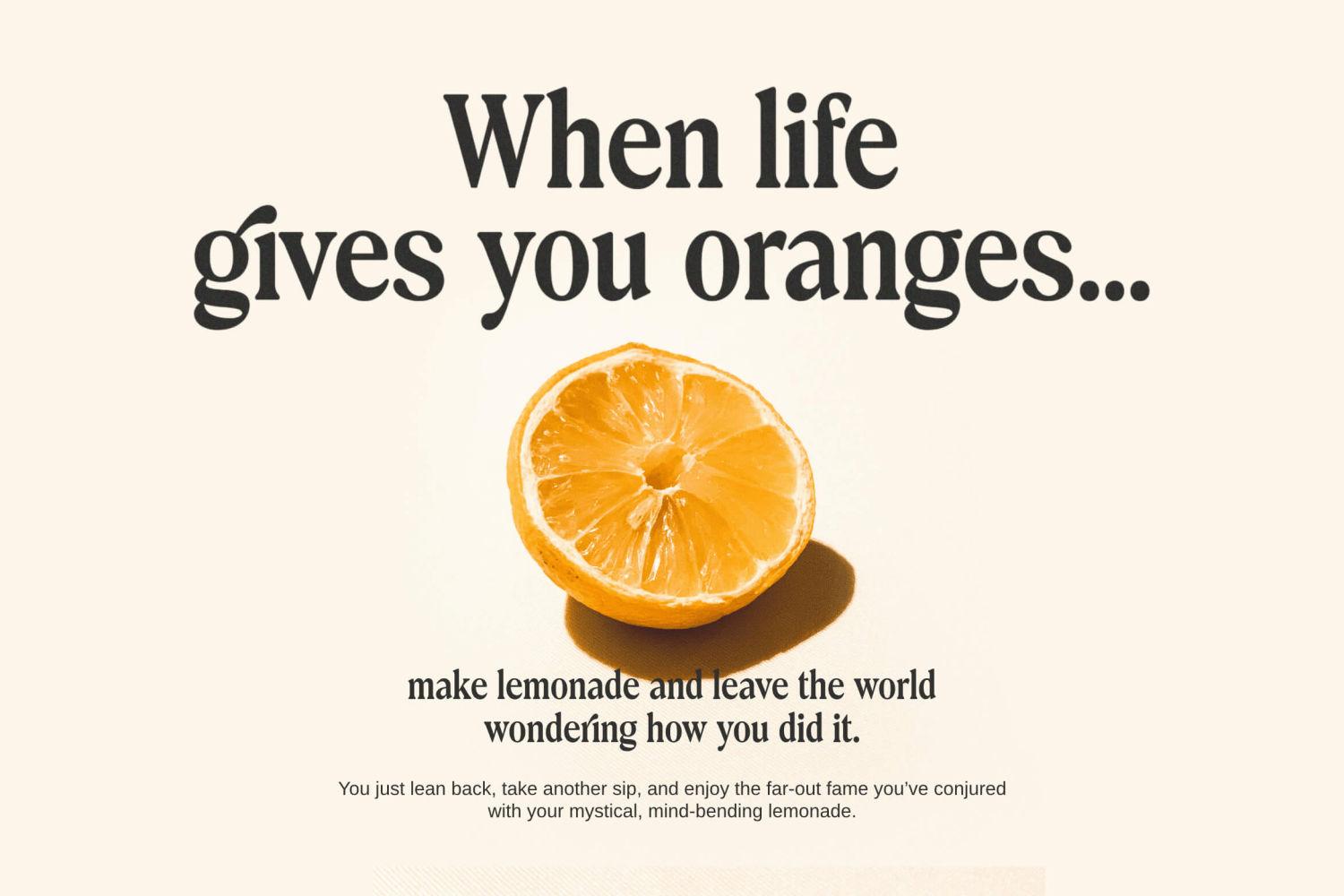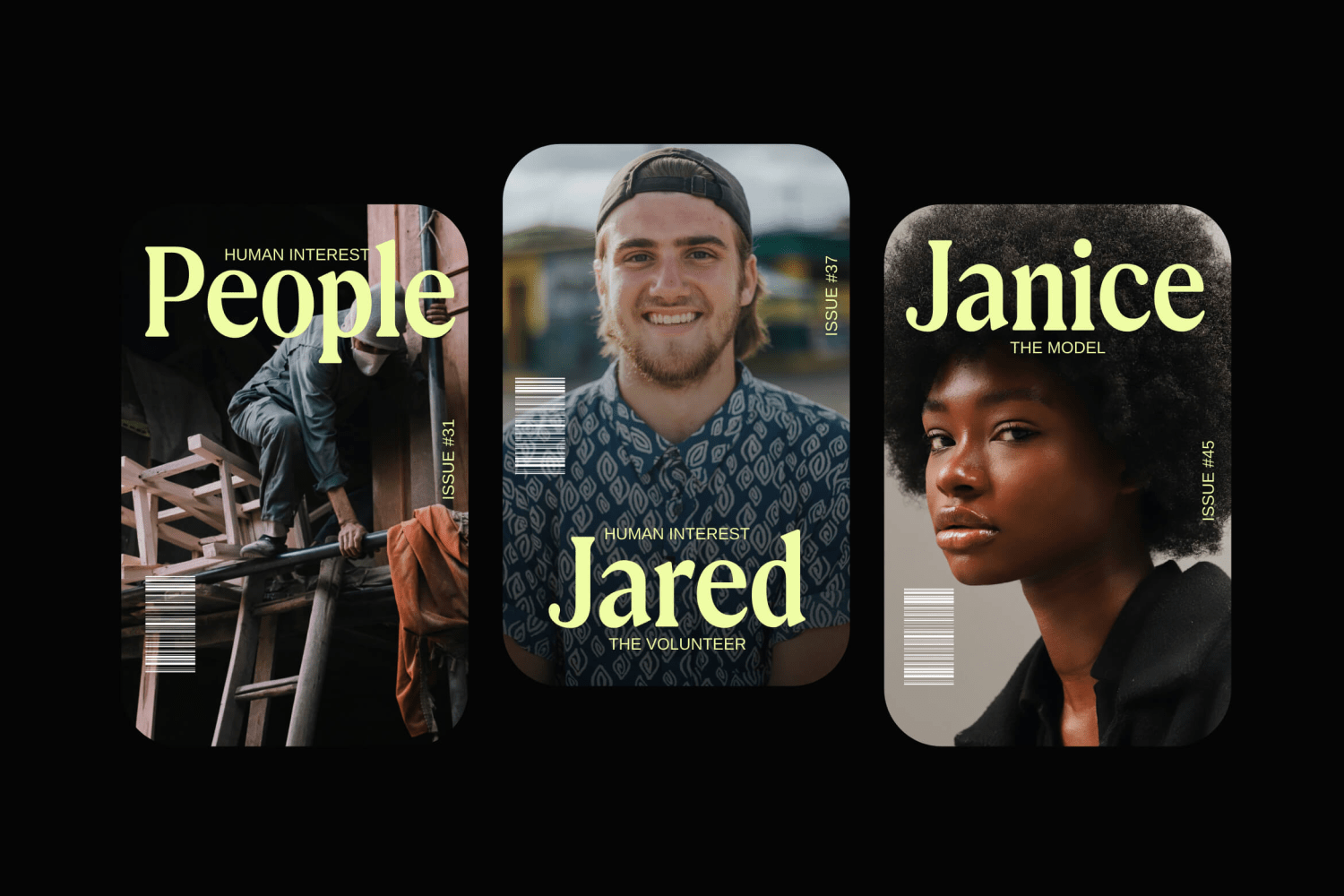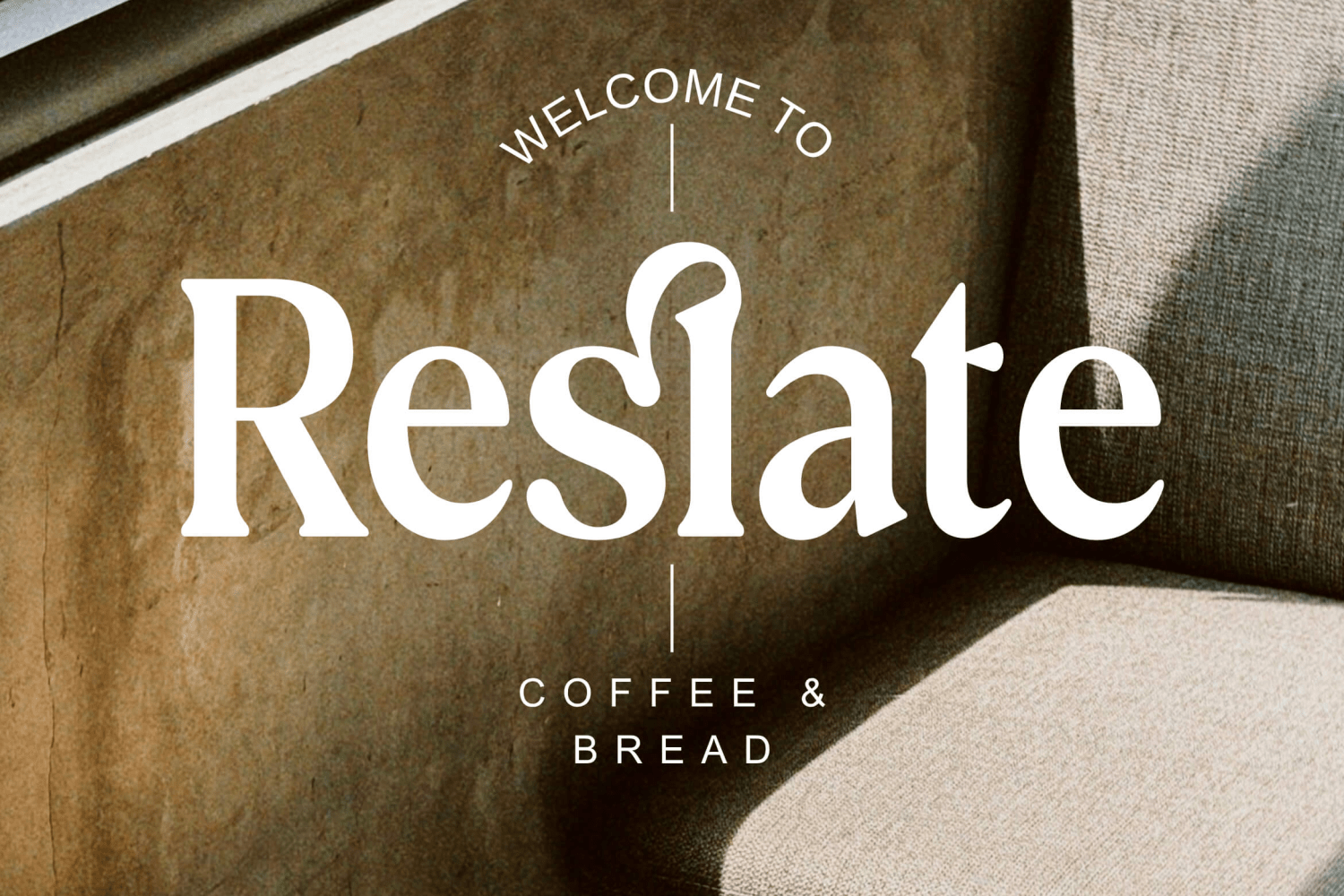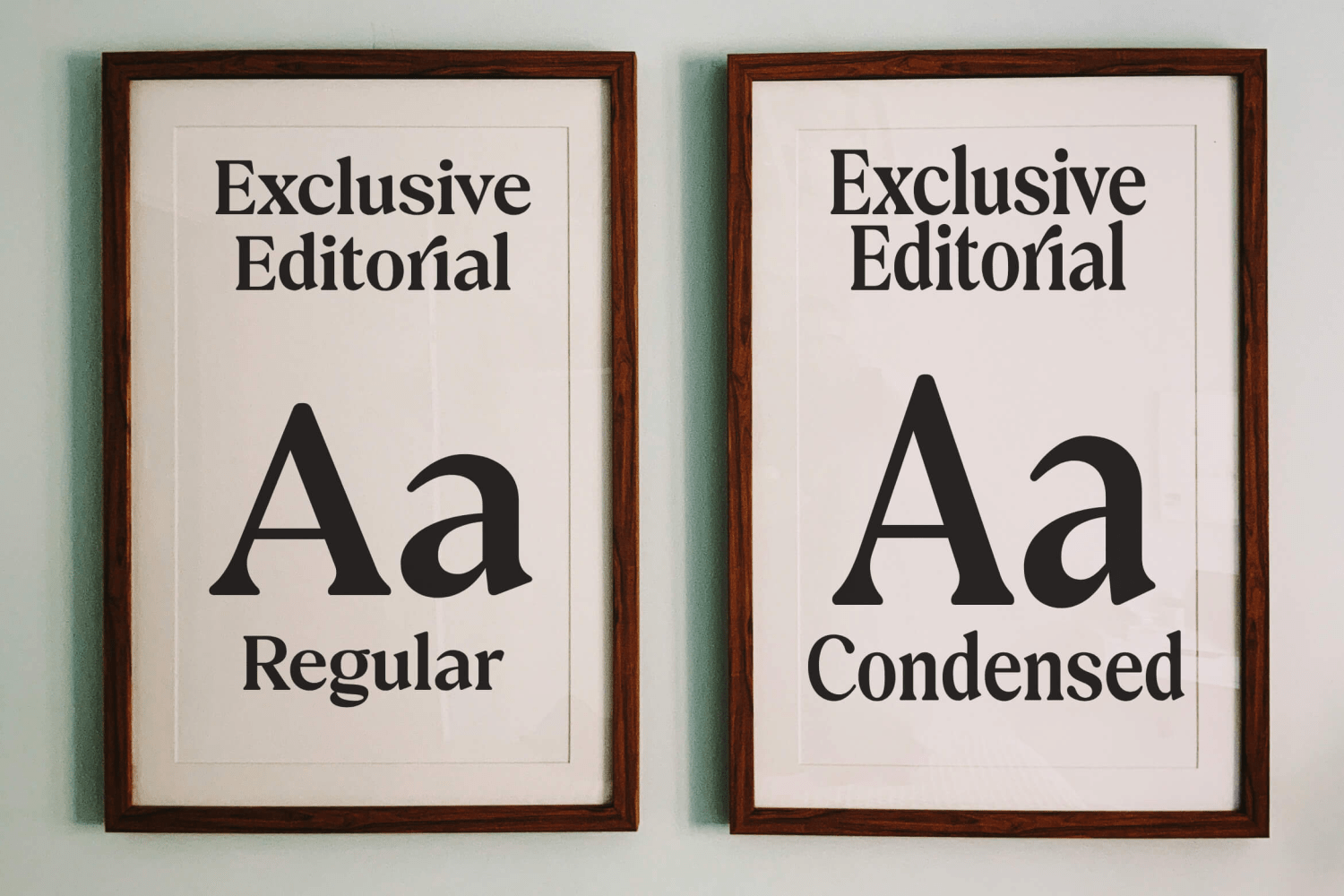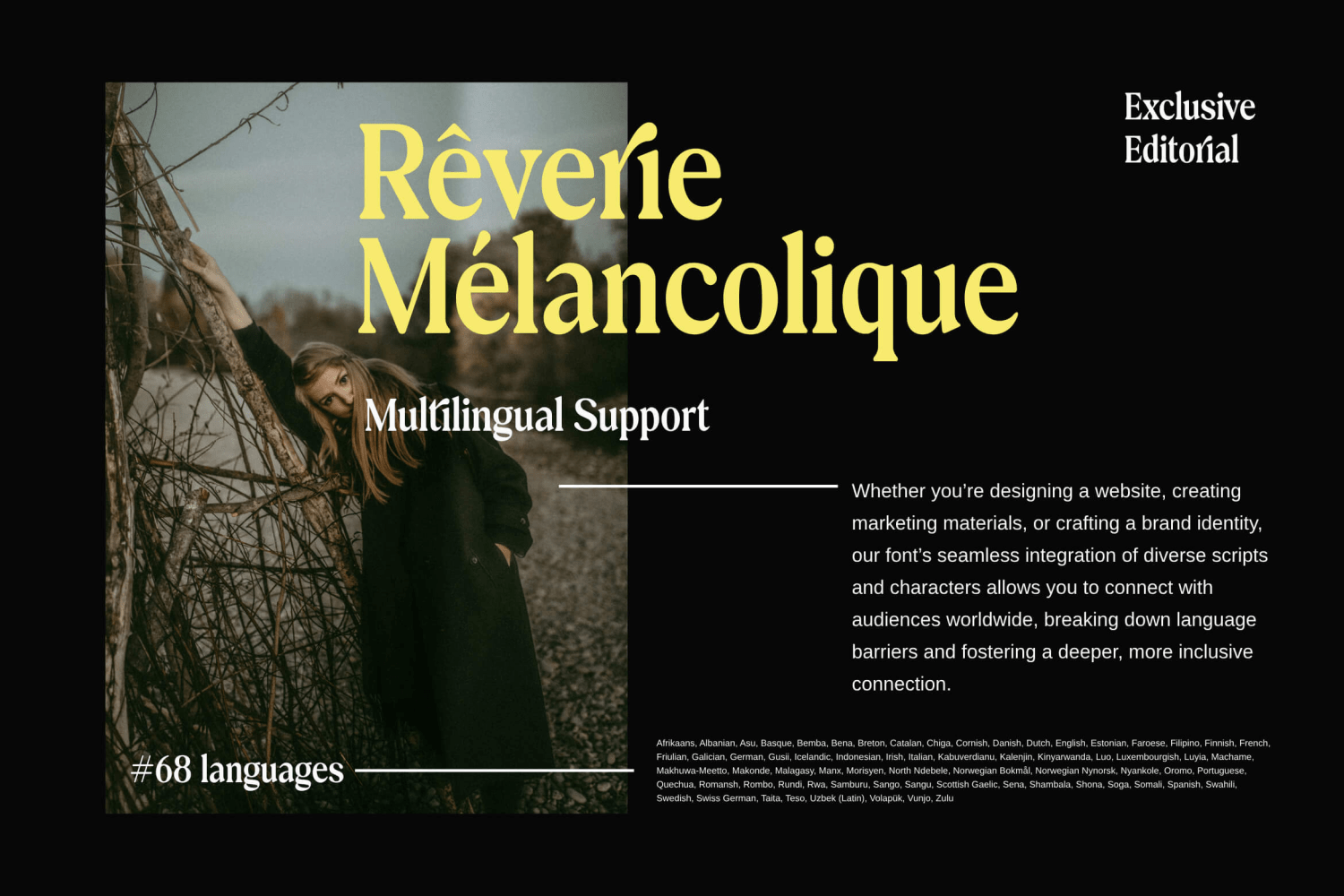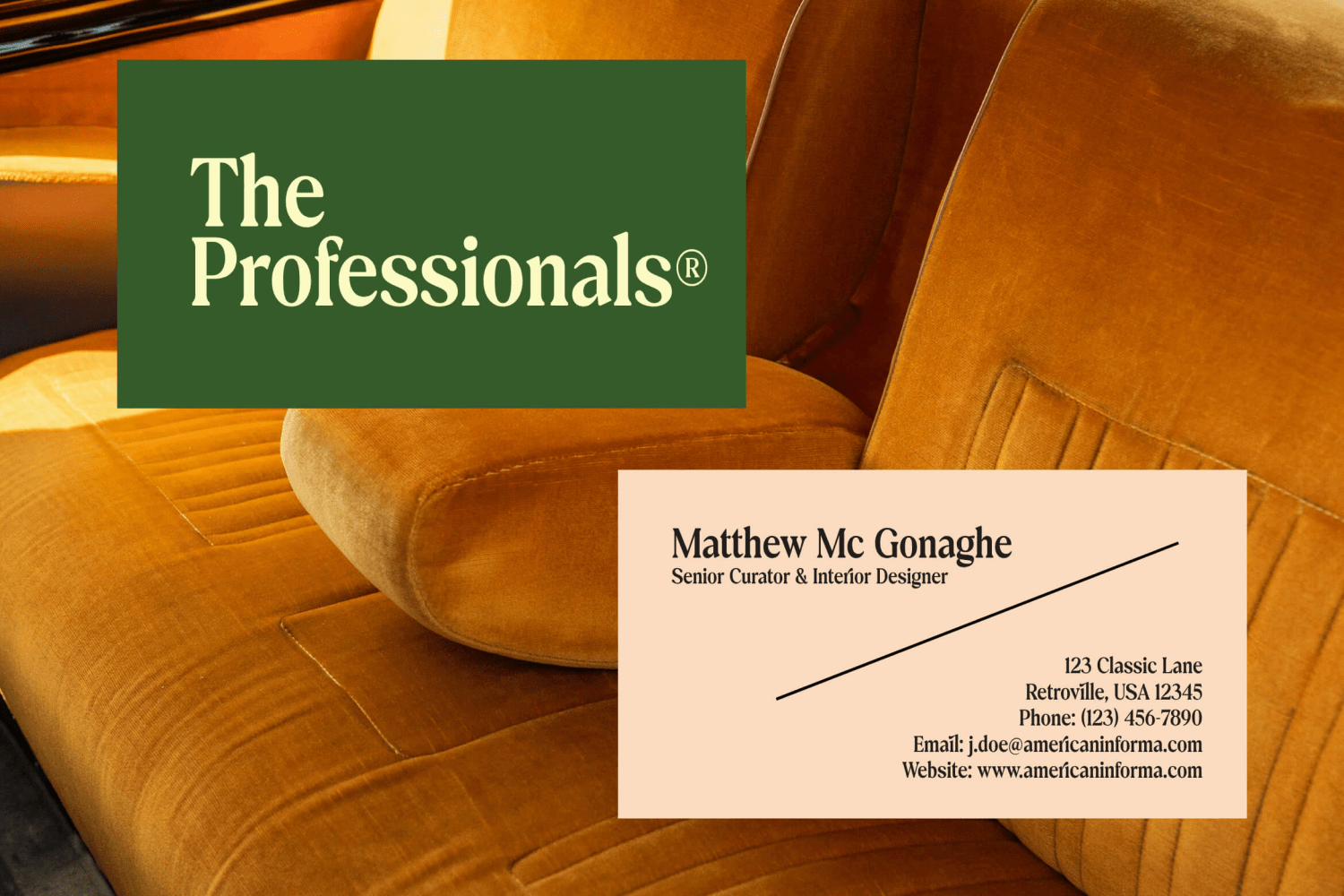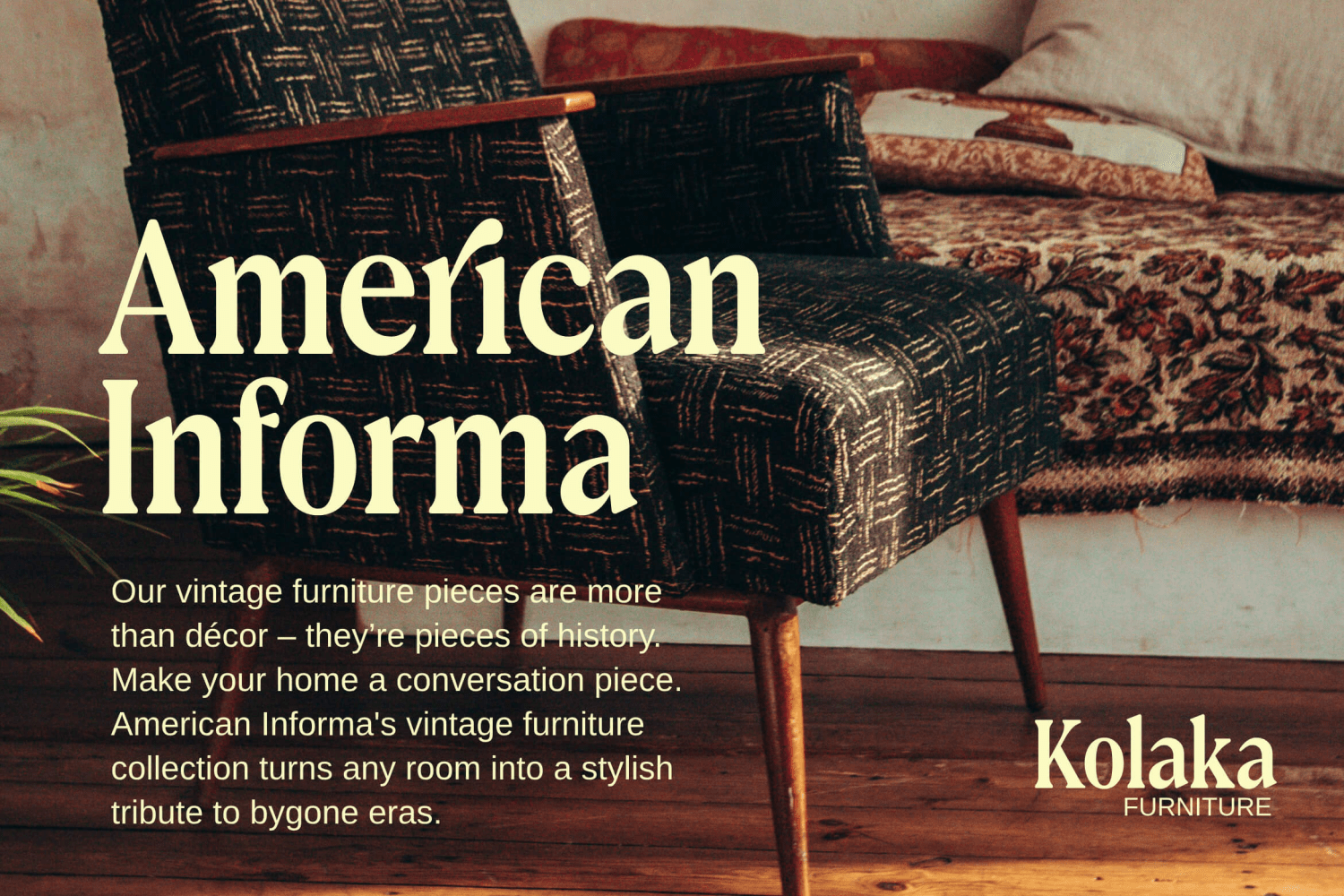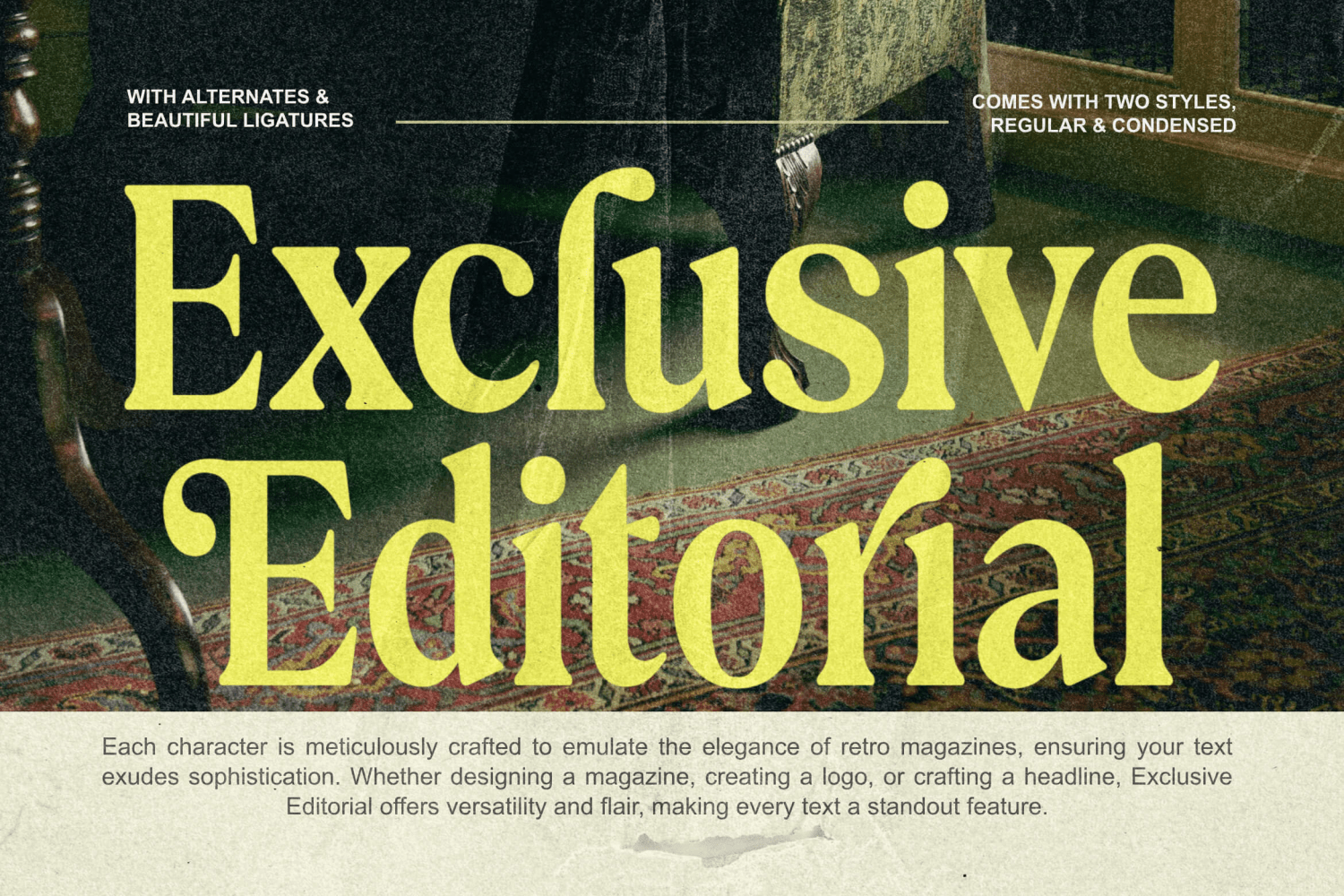
Exclusive Editorial
About Exclusive Editorial
Exclusive Editorial is a serif typeface with a retro style that will take you to the 80s. Also one that will definitely make your design stand out. A great combination of regular and Condensed styles that looks great in both large and small sizes. It…